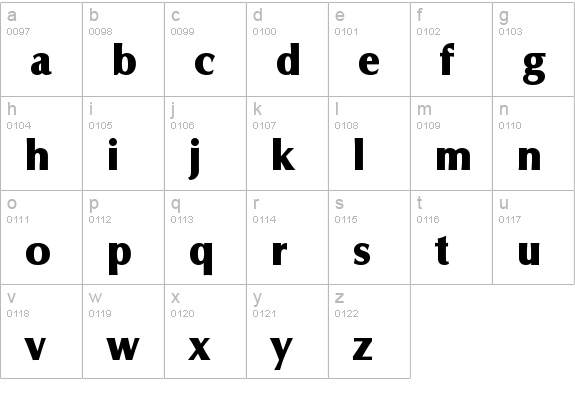
ColumbiaSerial-Heavy-Regular is a heavy, high-impact variant in the ColumbiaSerial typeface family \xE2\x80\x94 well suited to high-impact headlines, posters, and display advertising.
ColumbiaSerial-Heavy-Regular is a bold and sturdy typeface that exudes power and confidence. With its strong lines and thick strokes, this font commands attention and makes a statement. Perfect for headlines, posters, and branding projects, ColumbiaSerial-Heavy-Regular adds a touch of authority to any design. Best of all, ColumbiaSerial-Heavy-Regular is available for free download at FontsMarket.com. This means you can easily access this impactful font and use it in your projects without any cost. Don't miss out on the opportunity to enhance your designs with the bold and commanding presence of ColumbiaSerial-Heavy-Regular. Download it now and elevate your typography game!